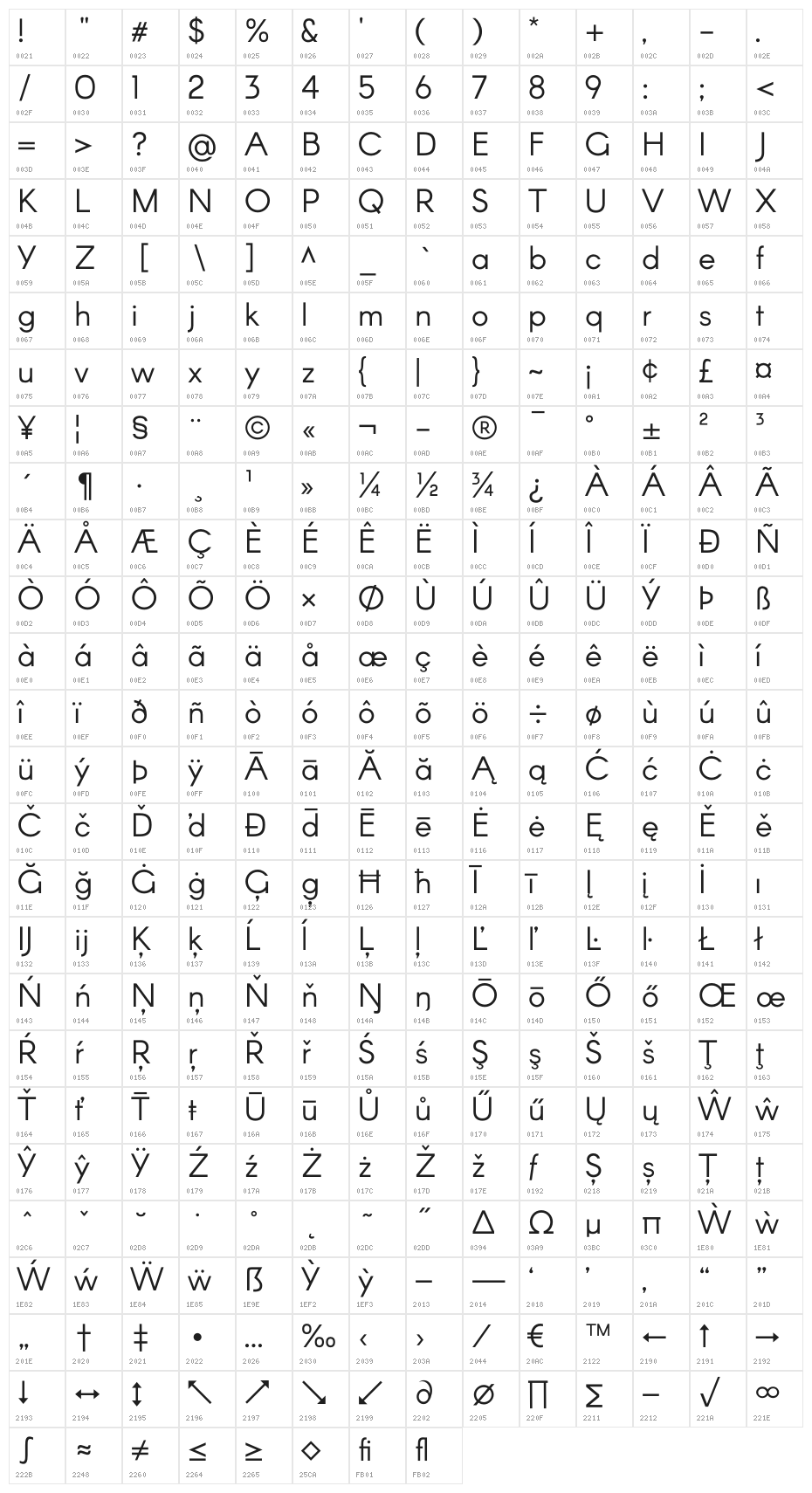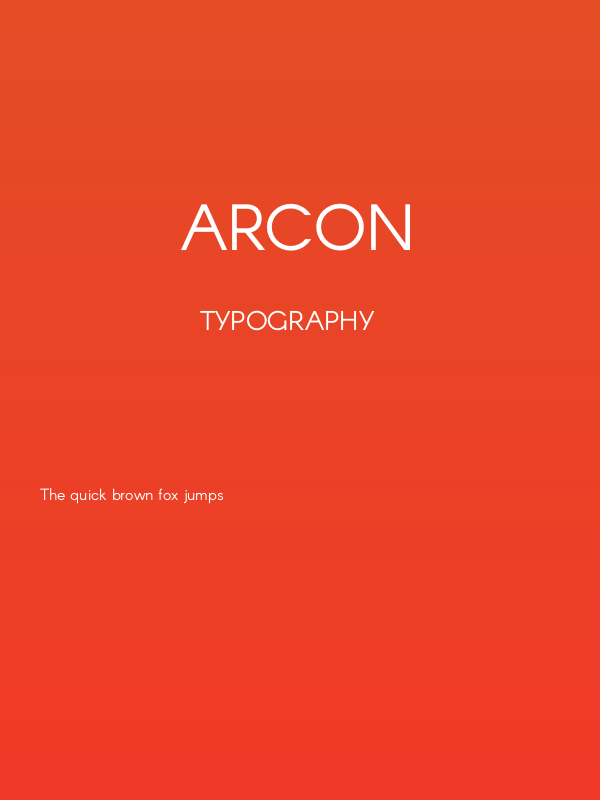
Arcon Font
Arcon Description
This font features a clean and modern sans-serif design with a geometric structure. The characters are well-balanced with a consistent stroke width, offering a harmonious and professional appearance. The uppercase letters are bold and assertive, while the lowercase letters maintain a friendly and approachable feel. The numerals are clear and easy to read, making them suitable for various applications. Special characters are included, providing versatility for different design needs. Overall, the font exudes a contemporary and minimalist aesthetic, ideal for projects that require a sleek and polished look.